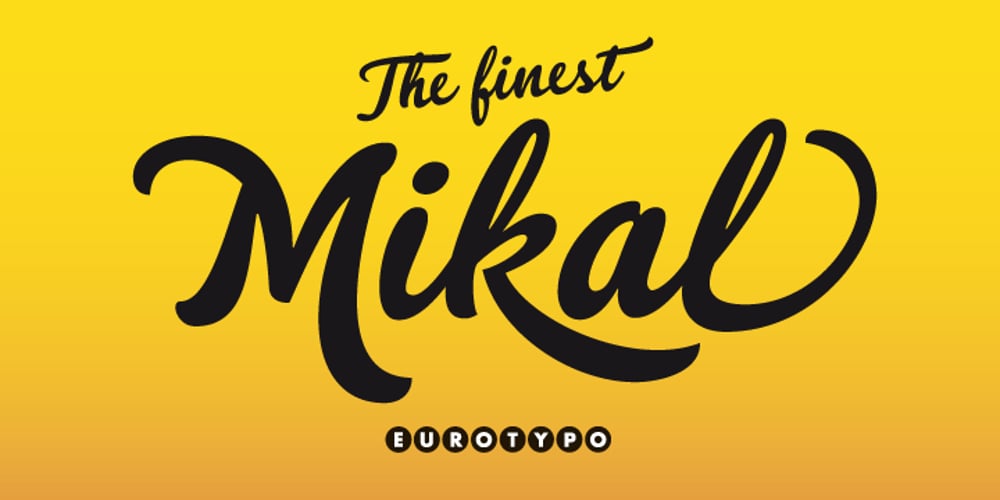
Mikal Font Family was designed by Olcar Alcaide and published by Eurotypo. Mikal contains 2 styles and family package options. David was promised Saul’s daughter in marriage after he defeated Goliath. However, while Saul procrastinated in delivering his elder daughter for marriage, David fell in love with the younger daughter Mikal (1 Samuel 18:20,28). Mikal was the only wife who was reported to have loved David. Her name, Mikal, meant brook, or stream, a symbol of the water of the word. Mikal is a versatile and elegant script font; well suited in the area of magazines, web pages, packaging, logotypes and advertising, etc. This font can be used as body text for its good legibility and accurate kerning. Mikal font has all the advantages of OpenType technology that allows a variety of combinations: Swash, old style numerals, standard and discretionary ligatures, contextual alternates, word ending and tails. Mikal supports all Central European character set as well as basic Western languages.